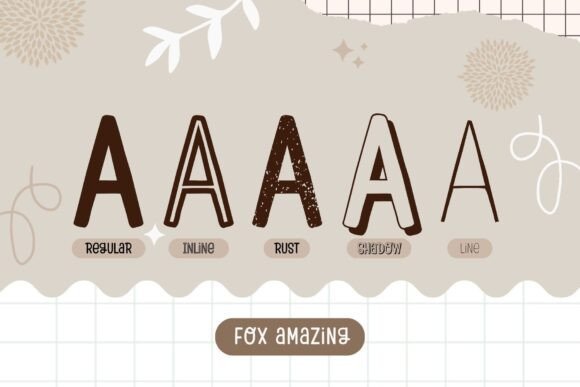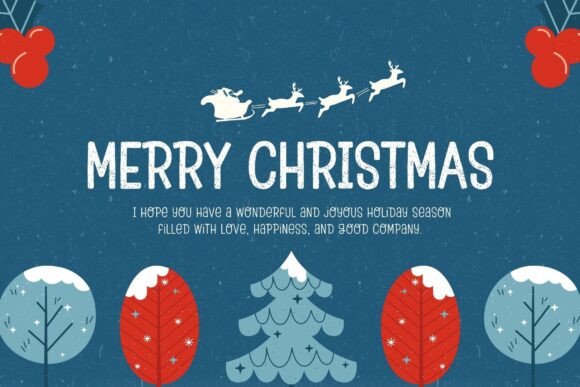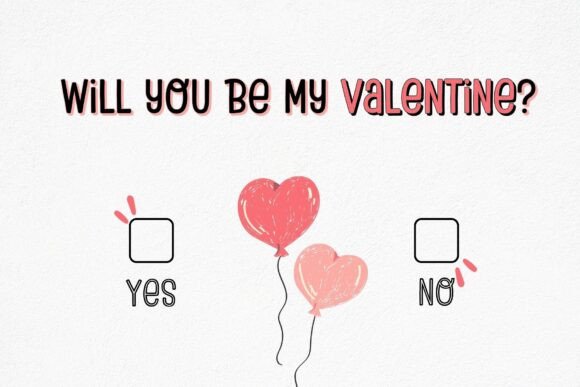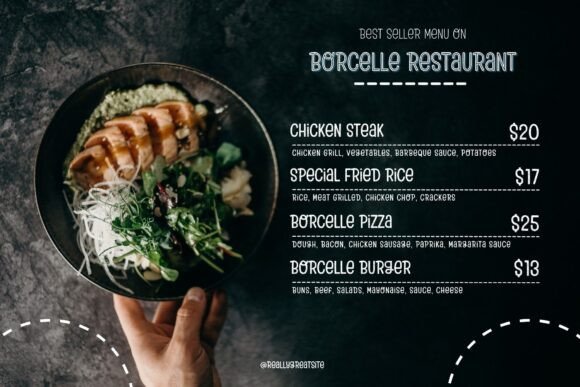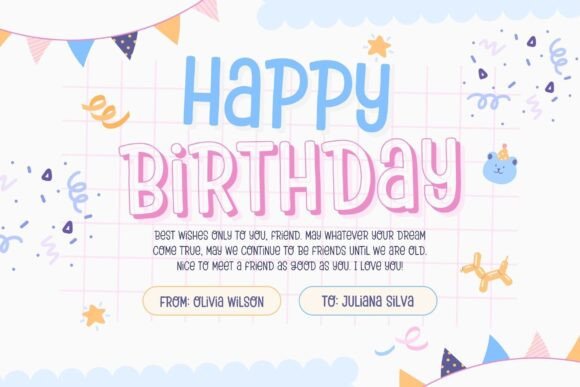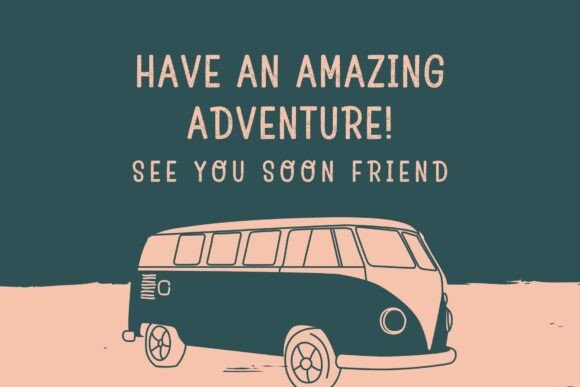
Introducing Fox Amazing Font: Elevate Your Designs with a Playful Twist
Are you tired of using the same old fonts in your designs? Look no further than Fox Amazing Font, a 5-style display font that adds a captivating and energetic touch to your creations. With its cool, cute, and playful vibe, this font is perfect for designers and crafters looking to make a statement.
The Features of Fox Amazing Font
Fox Amazing Font boasts a vibrant and expressive design that sets it apart from other fonts. Its main feature is its unique and energetic style, which allows you to create attention-grabbing headlines, t-shirt typography, banners, product labels, and more. The font comes in 5 different styles, giving you the flexibility to choose the one that best suits your design needs.
Fox Amazing Font is versatile and can be used in a wide range of design projects. Whether you’re working on a publication, menu, logo, business card, or even a t-shirt design, this font is sure to make your project stand out. Its playful and energetic vibe makes it perfect for designs that require a youthful and modern touch.
Why Choose Fox Amazing Font?
So, why choose Fox Amazing Font over other fonts? Here are just a few reasons:
- Unique and Expressive Design: Fox Amazing Font has a one-of-a-kind design that will set your designs apart from the rest.
- 5 Style Options: With 5 different styles to choose from, you can pick the one that best fits your design needs.
- Attention-Grabbing: This font is designed to grab attention and make a statement.
- Versatile: Fox Amazing Font can be used in a wide range of design projects, from publications to t-shirt designs.
Tips for Getting the Most Out of Fox Amazing Font
Here are a few tips for getting the most out of Fox Amazing Font:
- Experiment with Different Styles: Try out different styles to find the one that works best for your design.
- Use it for Headlines: Fox Amazing Font is perfect for headlines and titles.
- Pair it with Other Fonts: Try pairing Fox Amazing Font with other fonts to create a unique and interesting design.
- Use it for Branding: Fox Amazing Font can be used for branding and identity design projects.
Fox Amazing Font is a versatile and attention-grabbing display font that adds a playful and energetic touch to your designs. With its unique and expressive design, 5 style options, and versatility, it’s perfect for designers and crafters looking to make a statement. Whether you’re working on a publication, menu, logo, business card, or t-shirt design, Fox Amazing Font is sure to elevate your designs to the next level.